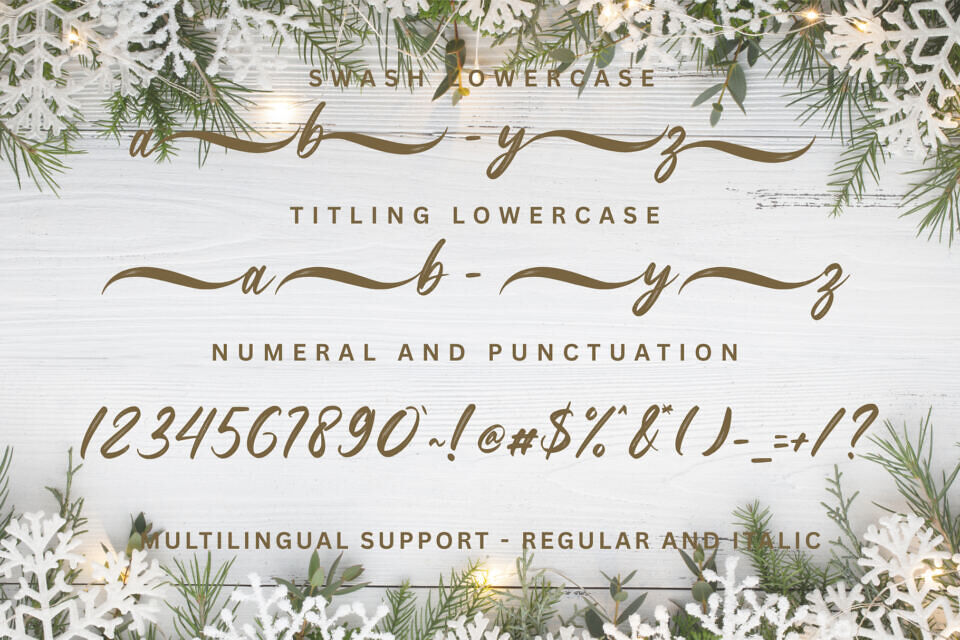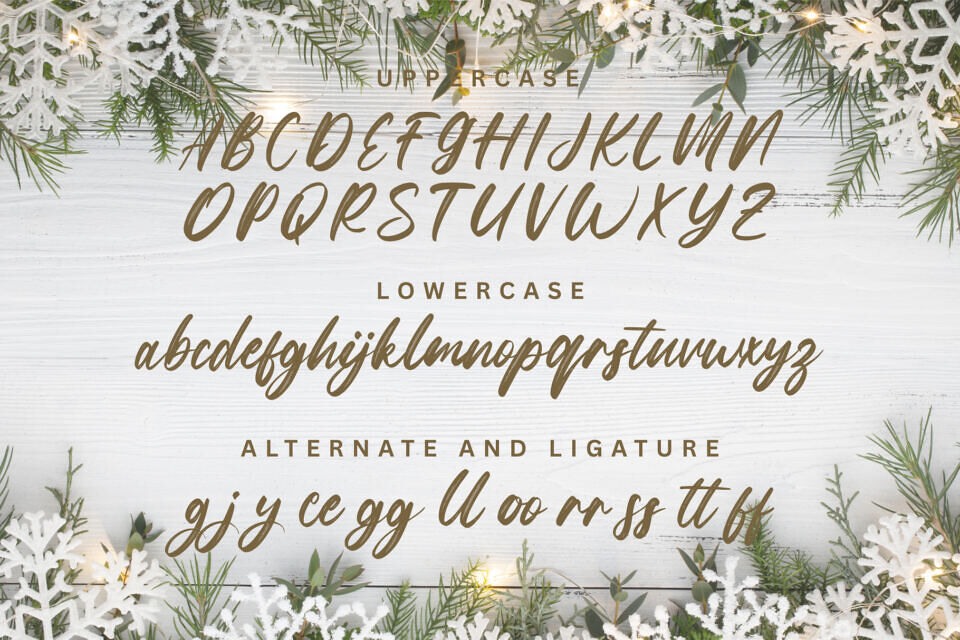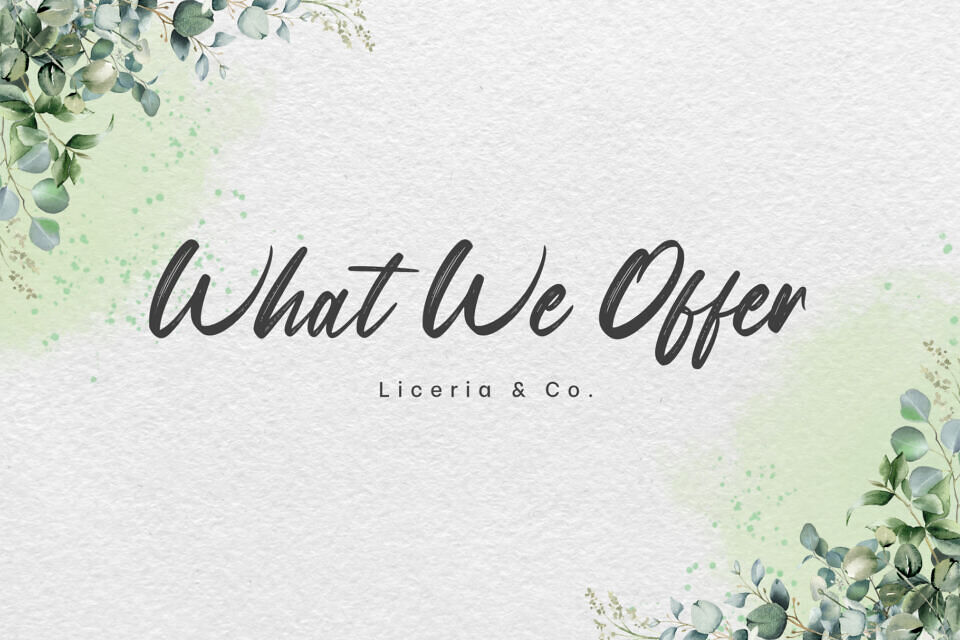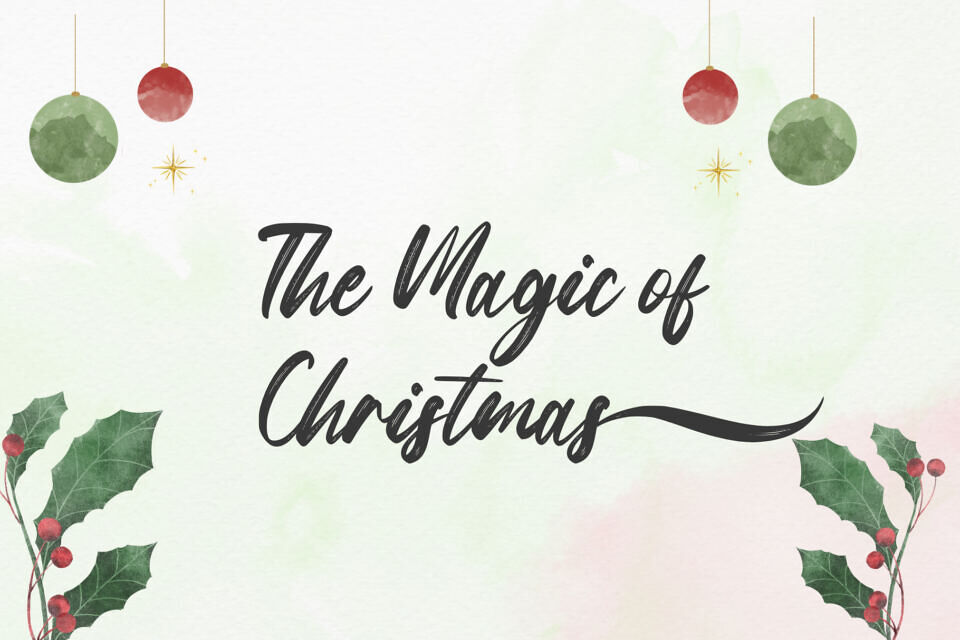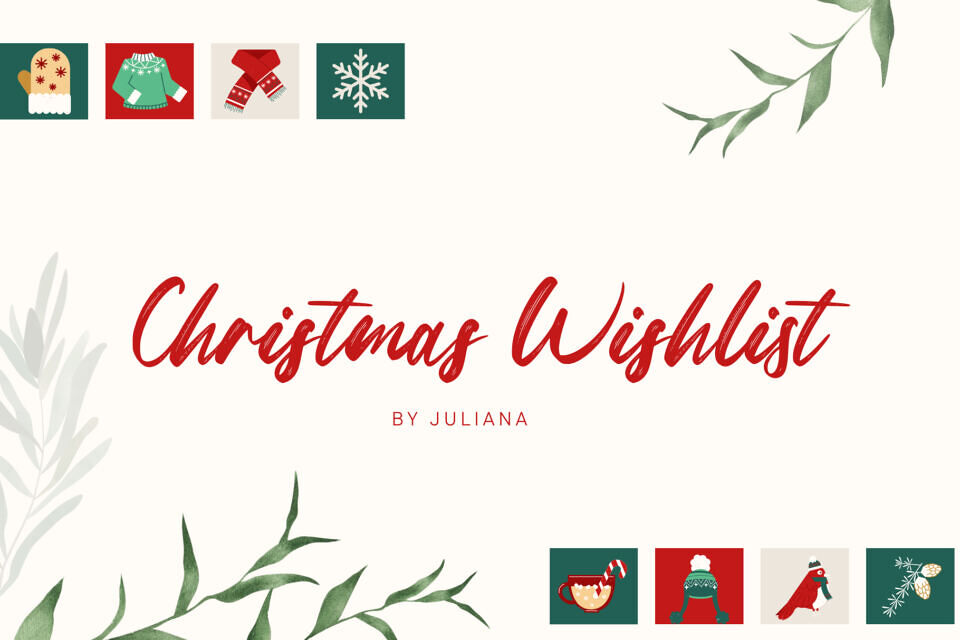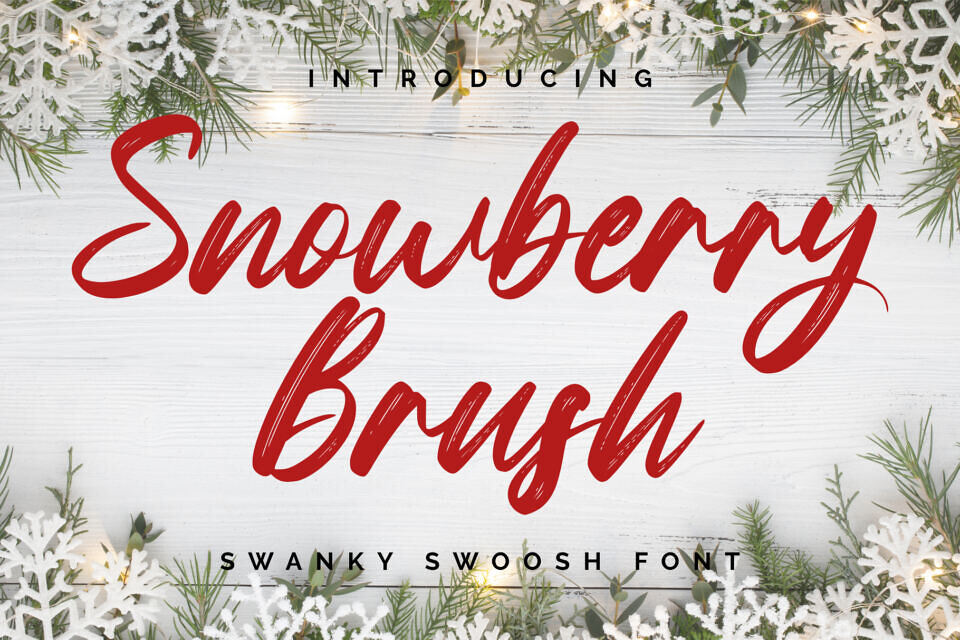
Snowberry Brush Font
Introducing Snowberry Brush, the embodiment of subtle grandeur and contemporary grace, meticulously crafted for all your artistic ventures. This exquisite brush font intertwines elegance and panache, making it a stunning companion for diverse design projects—from the ever-enchanting wedding invitations to standout branding materials.
Snowberry Brush is imbued with an enchanting dash of playfulness while respectfully paying homage to classic elegance, tastefully encapsulating the quintessence of current aesthetic trends without compromising the timeless allure.